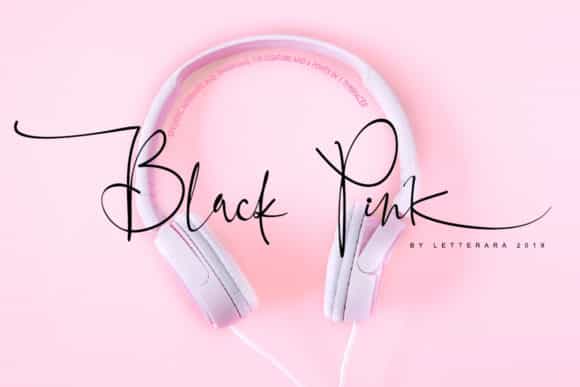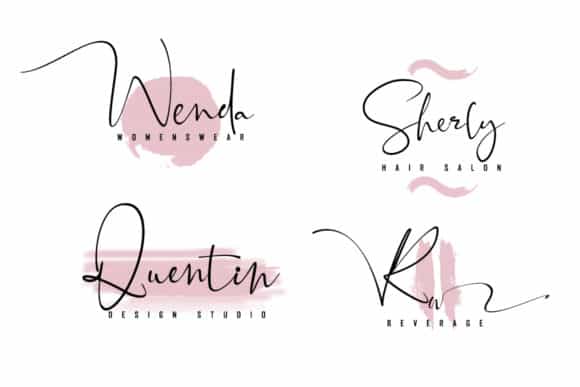
Introducing Black Pink Font! Black Pink was designed and shared by Thomasaradea. Black Pink Signature Font is a calligraphy family with an elegance style modern and classic. It gives a fashionable style and includes four beautiful styles. With them, they can give a perfect style for your design. An ideal blend of four font patterns in a font group can create beautiful typhographies.